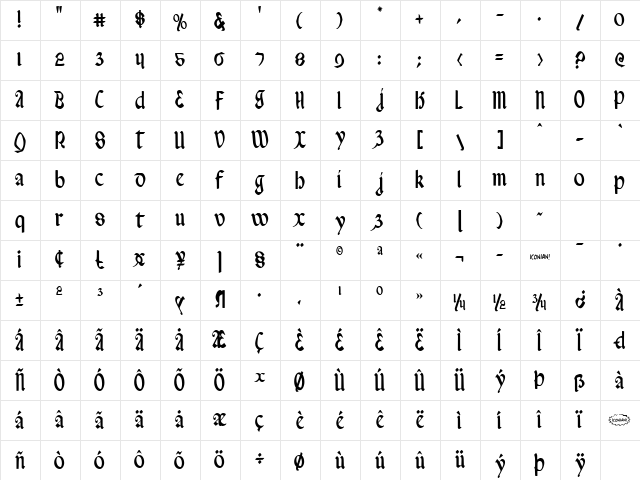
Valerius Condensed Free Font
Valerius Condensed Condensed
Style: Condensed
Design Context for Valerius Condensed
Valerius Condensed is a composed and adaptable typeface that performs quietly and consistently across a wide range of design contexts. Its narrow stance lets it pack a punch even in space-constrained designs.